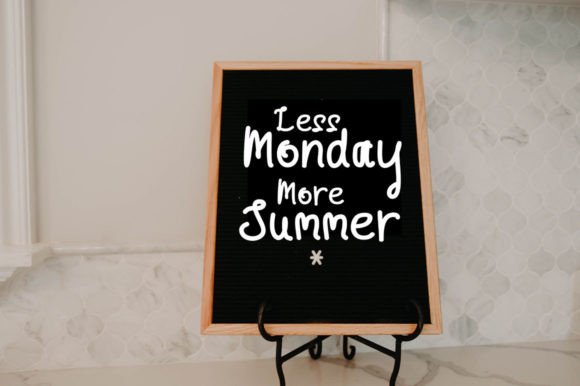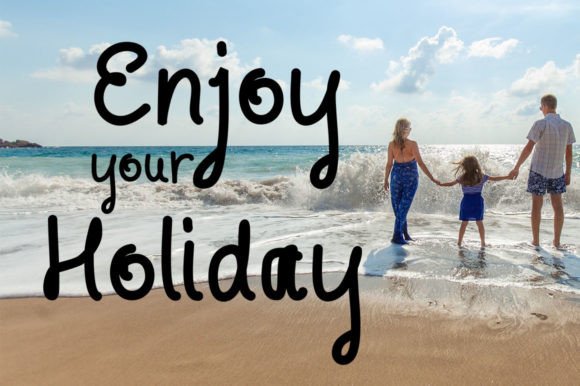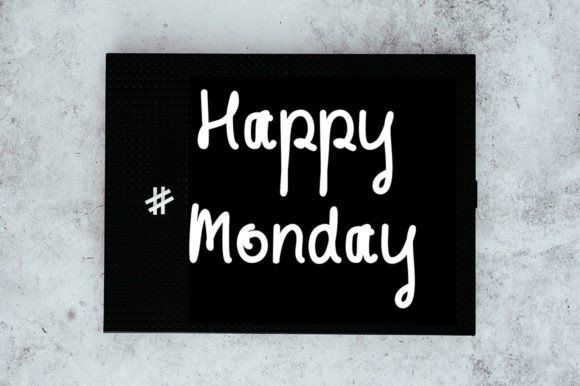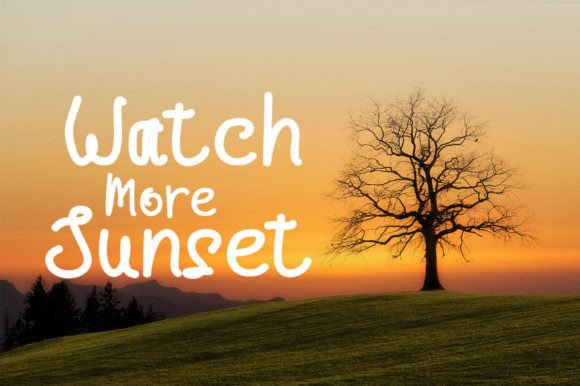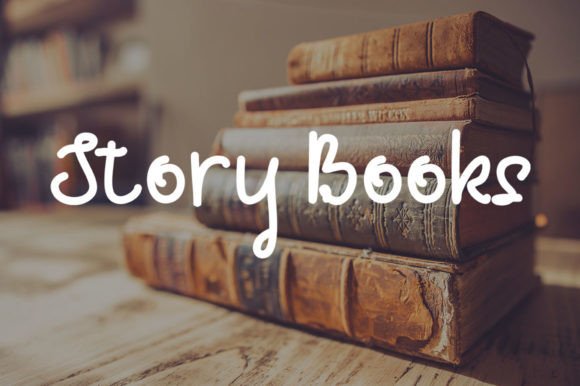
About Happy Birthday Font
“Happy Birthday” is an ideal choice for celebratory occasions and a variety of design projects. This modern handwritten font features an irregular baseline, adding a unique and trendy touch to your designs. Its versatility makes it suitable for various applications, including parties, invitations, gifts, and more.
In the realm of invitations and greeting cards, “Happy Birthday” is perfect for capturing the spirit of celebration. Whether it’s used for birthday party invitations, thank you cards, or greeting cards, this font adds a touch of modernity and charm to your messages, making them more memorable.
For wedding invitations, “Happy Birthday” offers a trendy and feminine style that complements contemporary wedding themes. It adds a touch of elegance and personality to your wedding stationery, making it more visually appealing to couples and their guests.
Quotes and inspirational messages take on a lovely and expressive quality with “Happy Birthday.” Its irregular baseline and handwritten aesthetics enhance the impact of your words, making them stand out and resonate deeply with your audience.
Logos and business cards designed with “Happy Birthday” can convey a unique and personalized identity for your brand. This font is particularly well-suited for businesses and brands that value creativity and a modern, handwritten touch.
In summary, “Happy Birthday” is a modern handwritten font that excels in adding a trendy and feminine flair to a wide range of design projects, especially those related to celebratory occasions and special events. Its unique irregular baseline and versatility make it a valuable tool for designers and creatives aiming to create visually captivating and memorable designs.